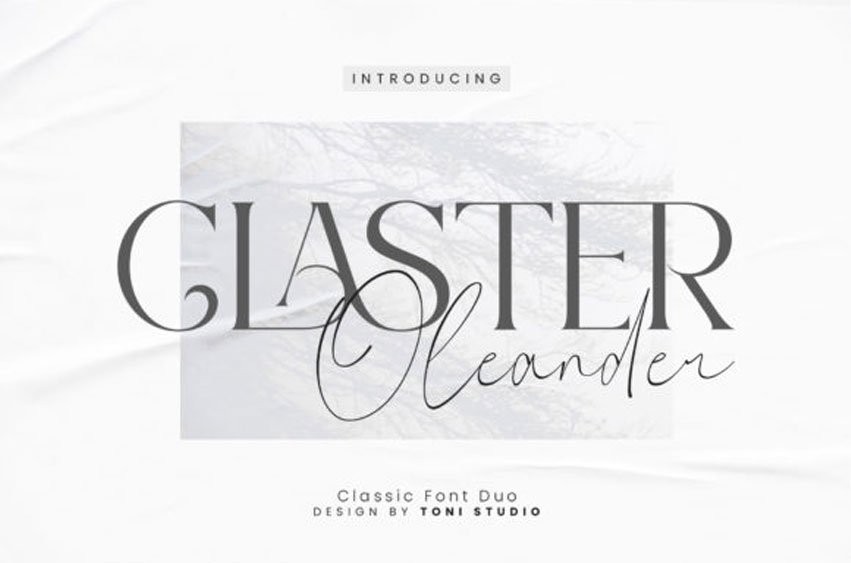
Claster Oleander Font is a grogeous duo font (serif and script). It is PUA encoded which means you can access all of the amazing glyphs and ligatures with ease!
This font was particularly crafted for those who need a beautiful and refreshing look to their designs.